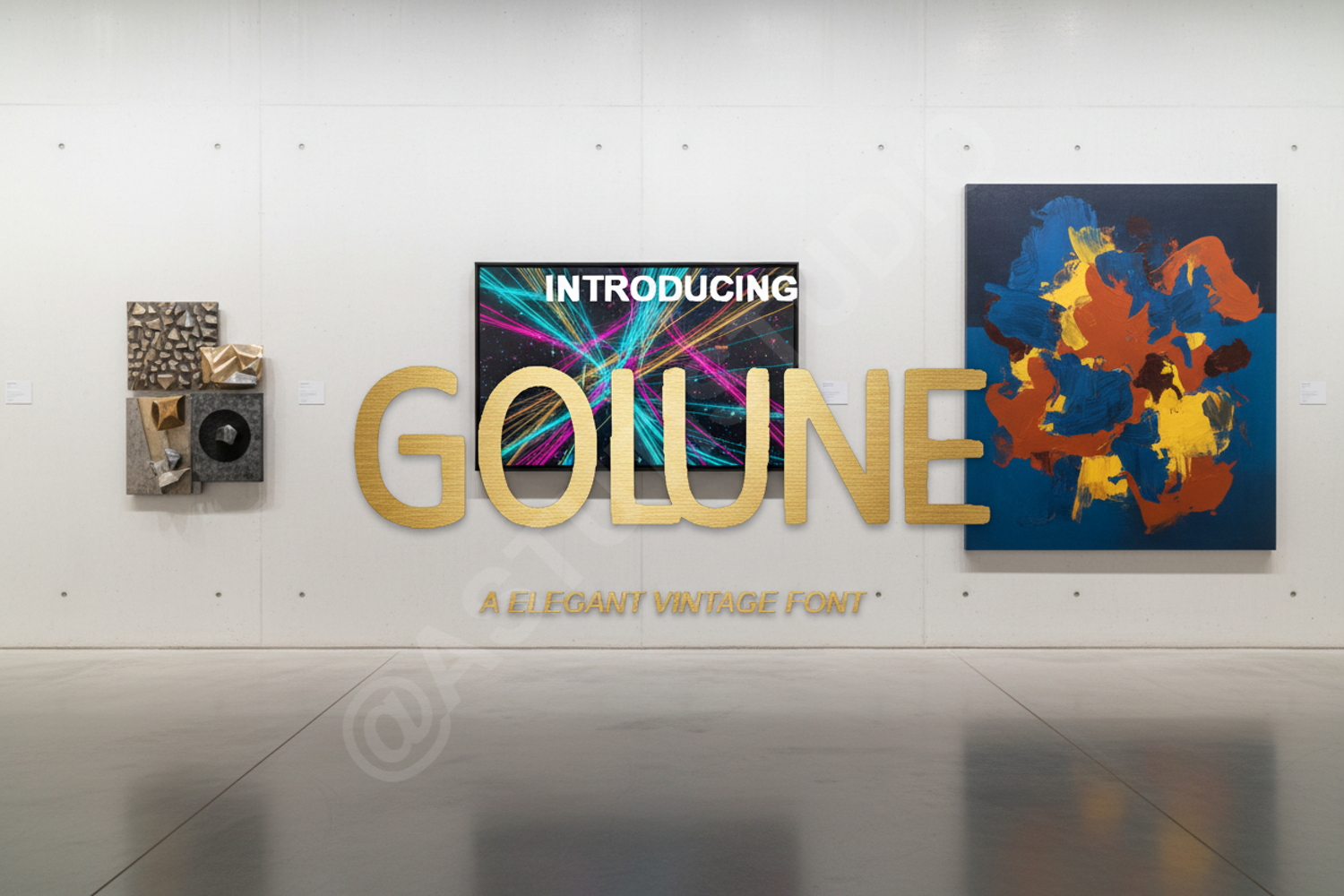
Golune - Modern Sophisticated Sans Serif
Golune
Golune is a premium sans serif typeface that balances contemporary aesthetics with timeless elegance. Designed with precision, this font offers a clean and sophisticated look that elevates any creative project. Its versatile nature makes it an essential tool for designers seeking a high-end feel without sacrificing readability.
- Branding and Visual Identity: Create memorable logos and corporate stationary.
- Editorial Design: Perfect for magazine layouts, headers, and body text.
- Digital Marketing: Enhance social media graphics and web banners.
- Wedding Stationery: Add a touch of modern luxury to invitations and menus.
- Product Packaging: Ideal for high-end retail and cosmetic brands.